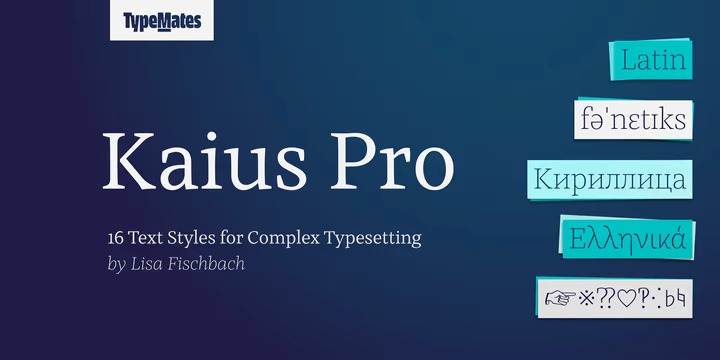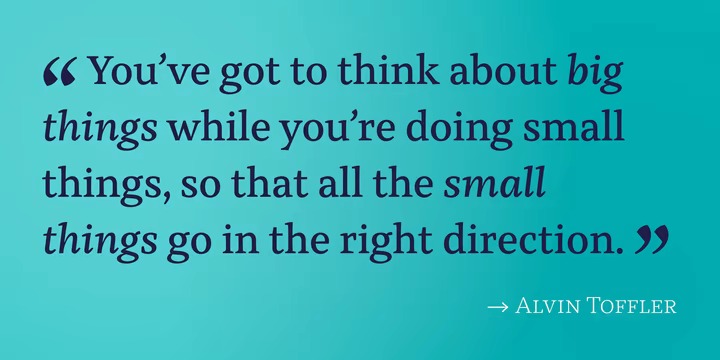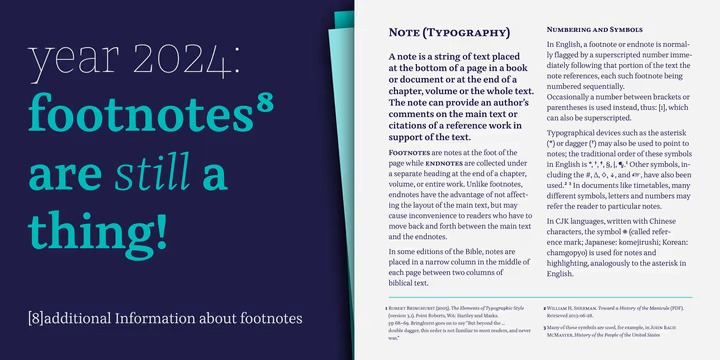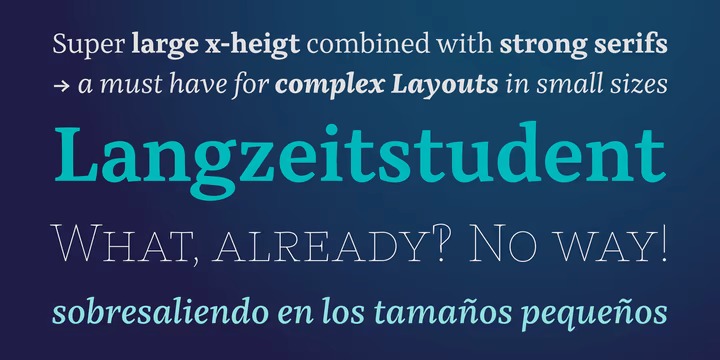
Kaius Pro Serif Font
This is a distinct, elegant and authentic serif font manufactured by TypeMates. Specialised for text in small sizes and complex layouts, Kaius is capable of handling demanding structure, language and character requirements with ease.
Kaius is not just a fresh alternative to classic text typefaces. With a generous x-height, open apertures and wide round letters, it’s also extremely readable. Sharp vertical serifs emphasise Kaius’s rhythm and are finely balanced with sturdy baseline serifs, which are so important for legibility. Together, these features create a reliable text structure.
Kaius combines analytical thinking with a modern exterior. The typeface’s outlines have more curved than straight lines, giving it an unconventional appearance close up. Zoom out, and Kaius brings a fresh feel to longform reading. Distinguished in distinction, Kaius is equipped with small caps, italics and 16 weights to style, structure and clarify complex information at every scale.
From the narrow, low contrast Hairline, to the softer, rounder Black, Kaius’s sixteen weights are complemented by lively italics. Their even rhythm and comparatively slight angle are contrasted by expressive cursive letterforms. Used in upright text, they harmonise; neither standing out too much nor blending in.
Whether all caps text, arbitrary fractions or tabular-ranging figures, setting five dot punctuation or accessing rare symbols like interrobangs and manicules, typographic excellence is no challenge for this scholar of complexity.
Kaius’s love of books makes it a friend of fine typography. Kaius expertly selects the correct dashes and quotation marks for different languages and has sets of punctuation and symbols carefully refined for use in uppercase and small-cap texts.
And Kaius is a linguistic enthusiast. Along with Greek and Cyrillic, it supports almost every language that uses the Latin alphabet, from Icelandic to Vietnamese. It’s attentive to localised forms, supports ancient Greek and historical Cyrillic letters, and is well-versed in the International Phonetic Alphabet and the many special characters used in academic and lexical typography. All in all, Kaius’s character set covers an extensive 2,500 glyphs. Whatever you might need, Kaius covers it.